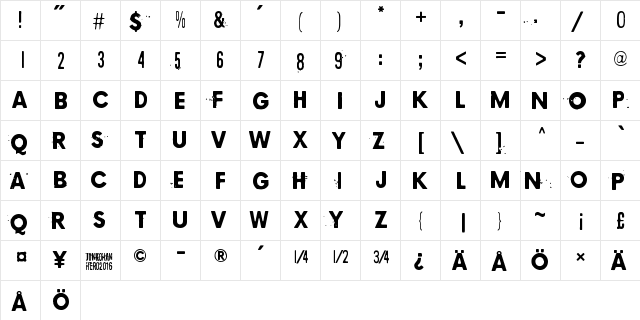
Kopio 639 Regular Font Preview
Kopio 639 Regular
Kopio 639 Regular Font Details
Design Context for Kopio 639 Typeface
Kopio 639 is a composed and adaptable typeface that performs quietly and consistently across a wide range of design contexts.